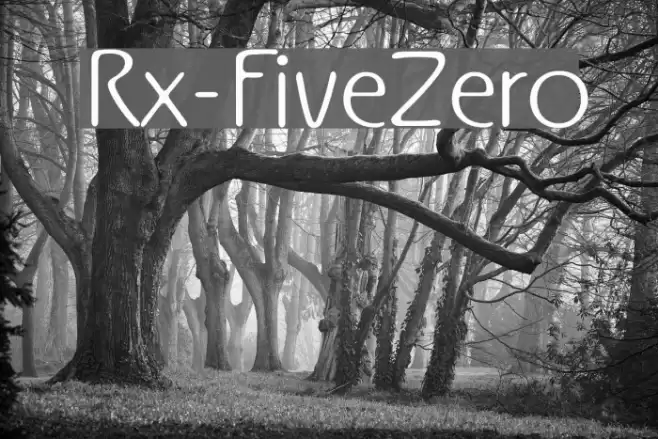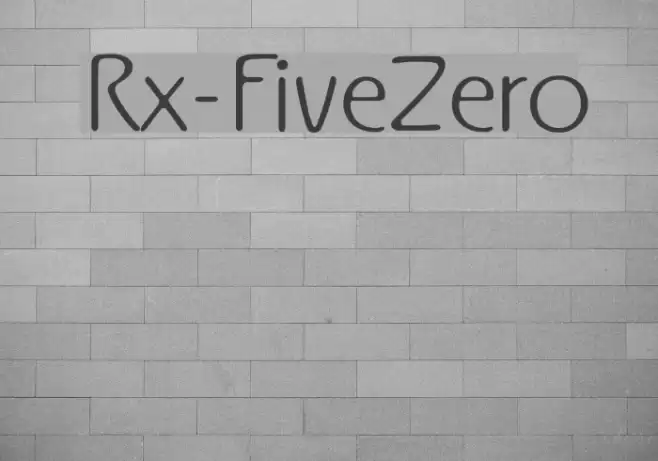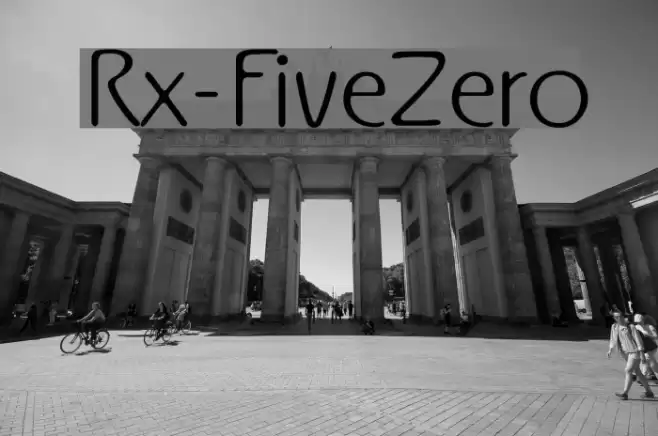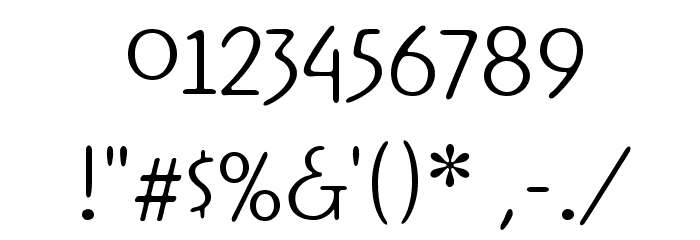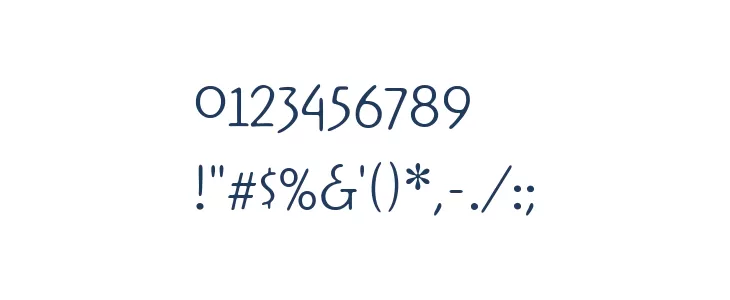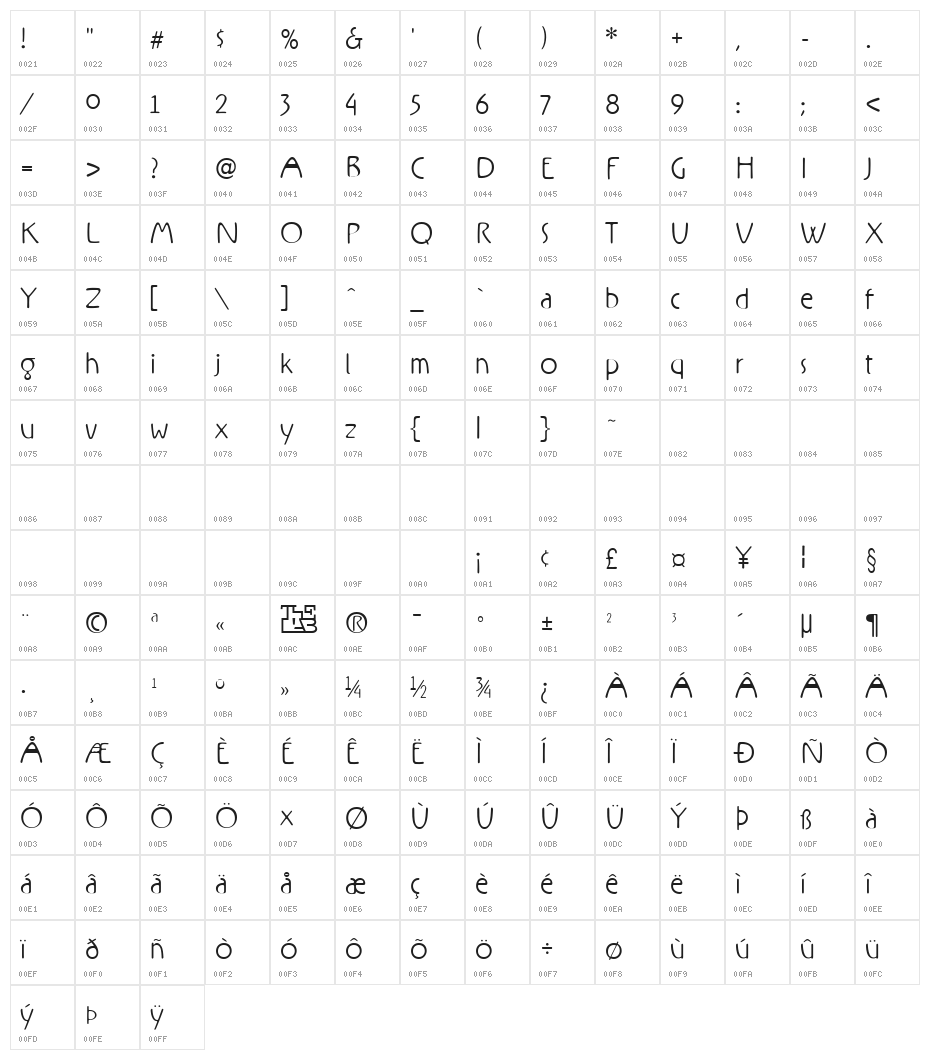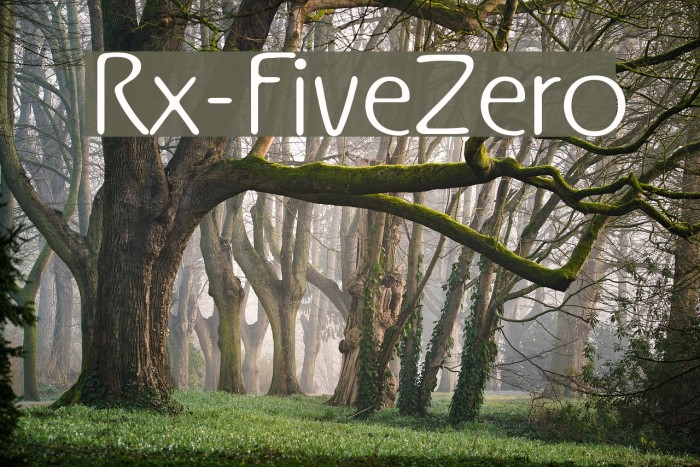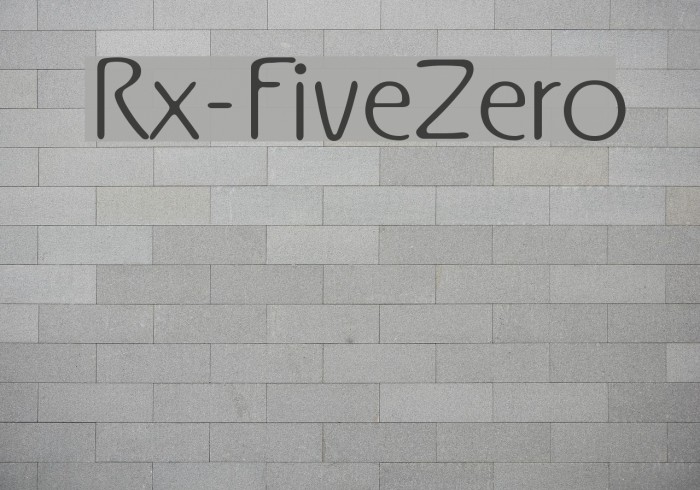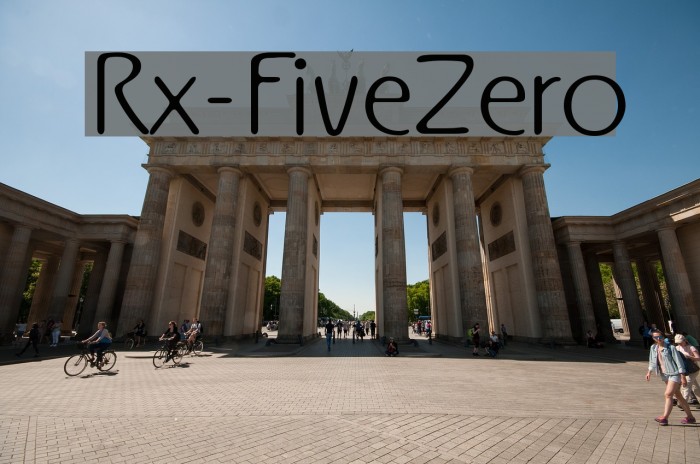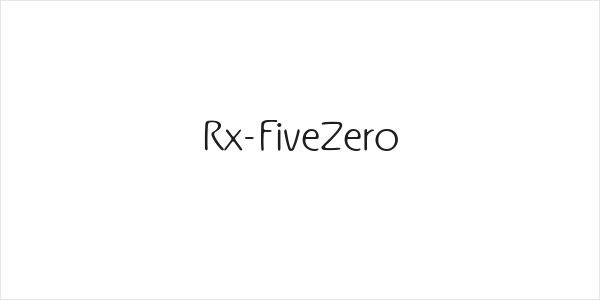
Rx-FiveZero Font
Rx-FiveZero Description
This font features a clean and modern design with smooth curves and a slightly playful character. The uppercase letters are tall and slender, while the lowercase letters maintain a consistent roundness that adds a friendly touch. The numerals are well-proportioned, ensuring readability. Special characters are designed with a similar aesthetic, providing a cohesive look across all glyphs. The overall appearance is both professional and approachable, making it versatile for various design needs.
A modern, playful font with smooth curves and consistent roundness from Handwritten fonts.
- Proposed Projects: Ideal for branding, advertising, and digital content where a modern and friendly tone is desired.